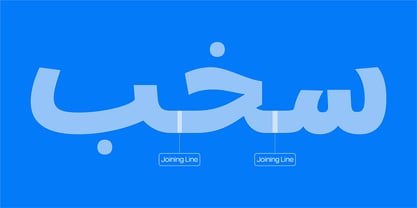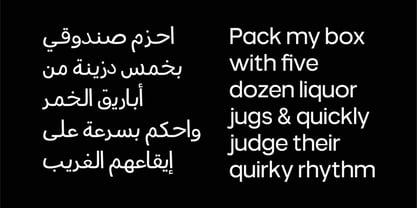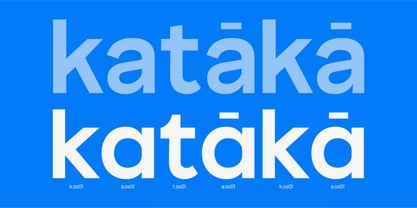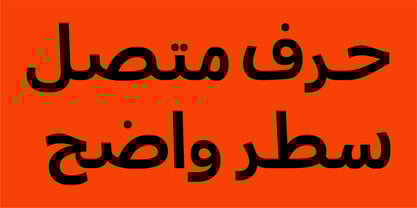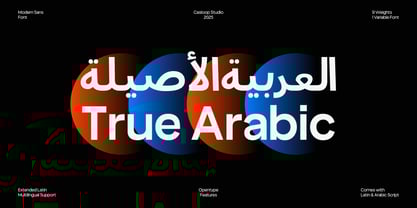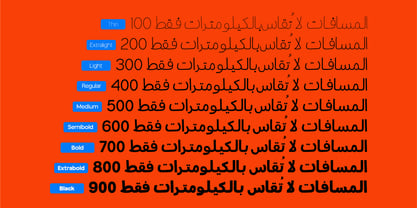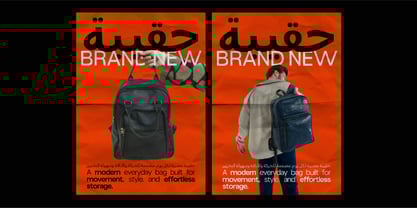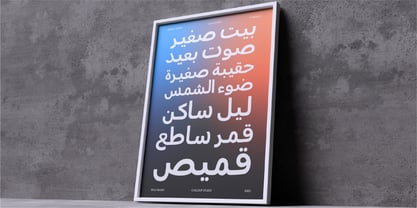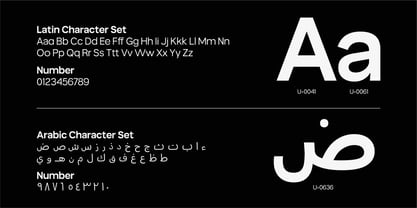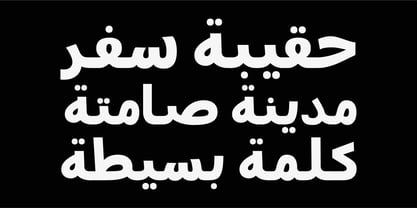
True Arabic
True Arabic — The Seamless Bridge Between Scripts
True Arabic is a modern geometric sans-serif typeface designed for the future of multilingual communication. Built from the ground up to support both Arabic and Latin scripts, it’s a genuine Arabic font designed with precision, balancing the elegance of traditional calligraphy with a modern, minimalist aesthetic. True Arabic font family brings precision, clarity, and consistency to global design systems. Crafted with a clean humanist structure and neo-grotesque elegance,
True Arabic features a warm and approachable tone. The carefully constructed Arabic forms ensure clear legibility and seamless flow, while the Latin counterpart matches in rhythm and proportion—making it the perfect choice for branding, UI, signage, editorial, and motion design. With 9 weights from Thin to Black, plus a fully functional variable font, True Arabic adapts beautifully across display and text settings. Stylistic sets offer alternate forms for characters like “k, a, and t,” giving designers the flexibility to fine-tune voice and tone.
Features:
Authentic Arabic Script
Latin + Arabic script pairing, fully harmonized
Legible & Versatile
9 weights from Thin to Black
Geometric structure with neo-grotesque and humanist fusion
Stylistic Set (SS01) for custom alternates (k, a, t)
Multilingual Arabic support + extended Latin
Ideal For:
Global brand systems & digital products
Arabic–English user interfaces (UI/UX)
Multilingual websites and mobile apps
Editorial & corporate communication
Modern tech, fashion, or lifestyle brands needing regional impact